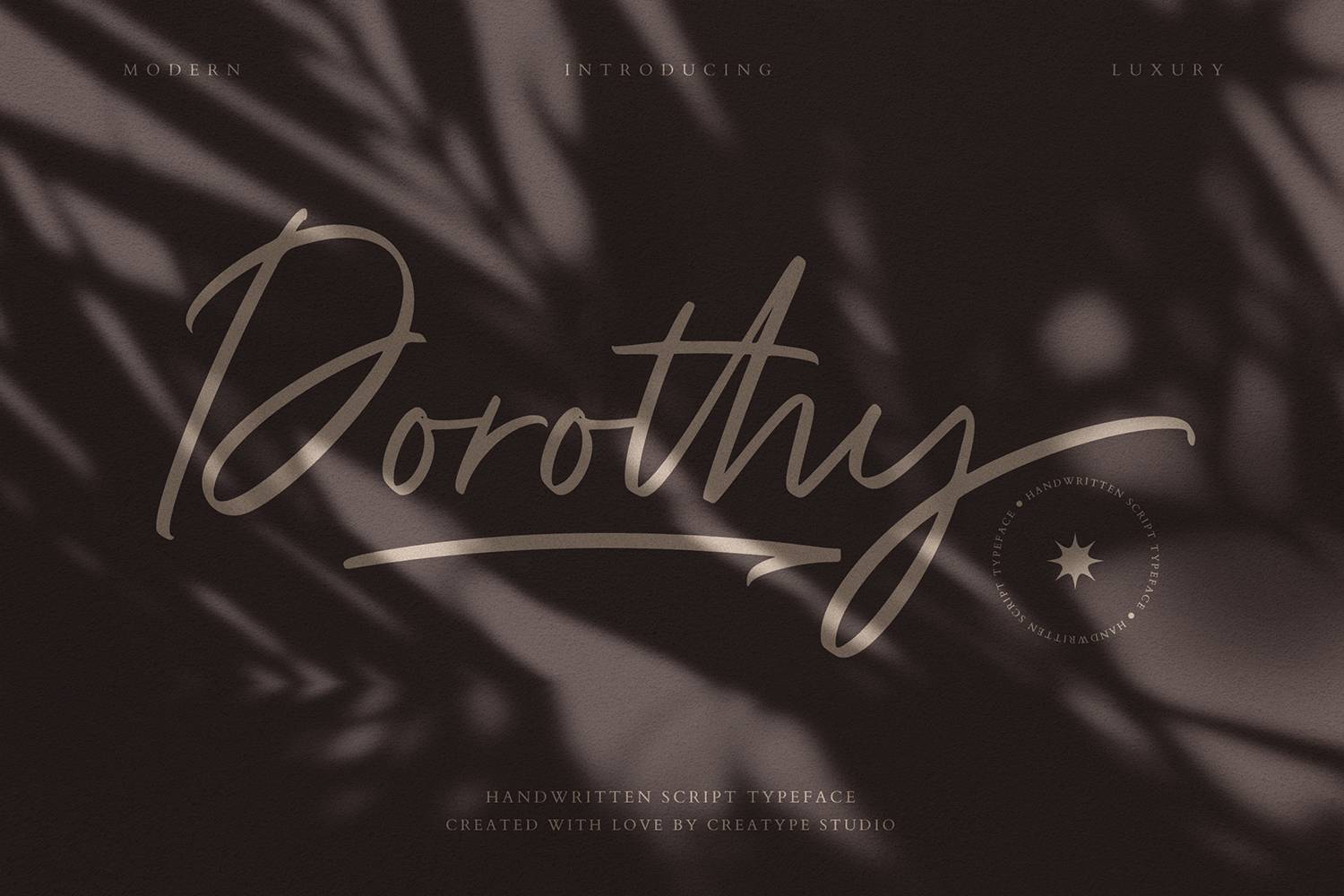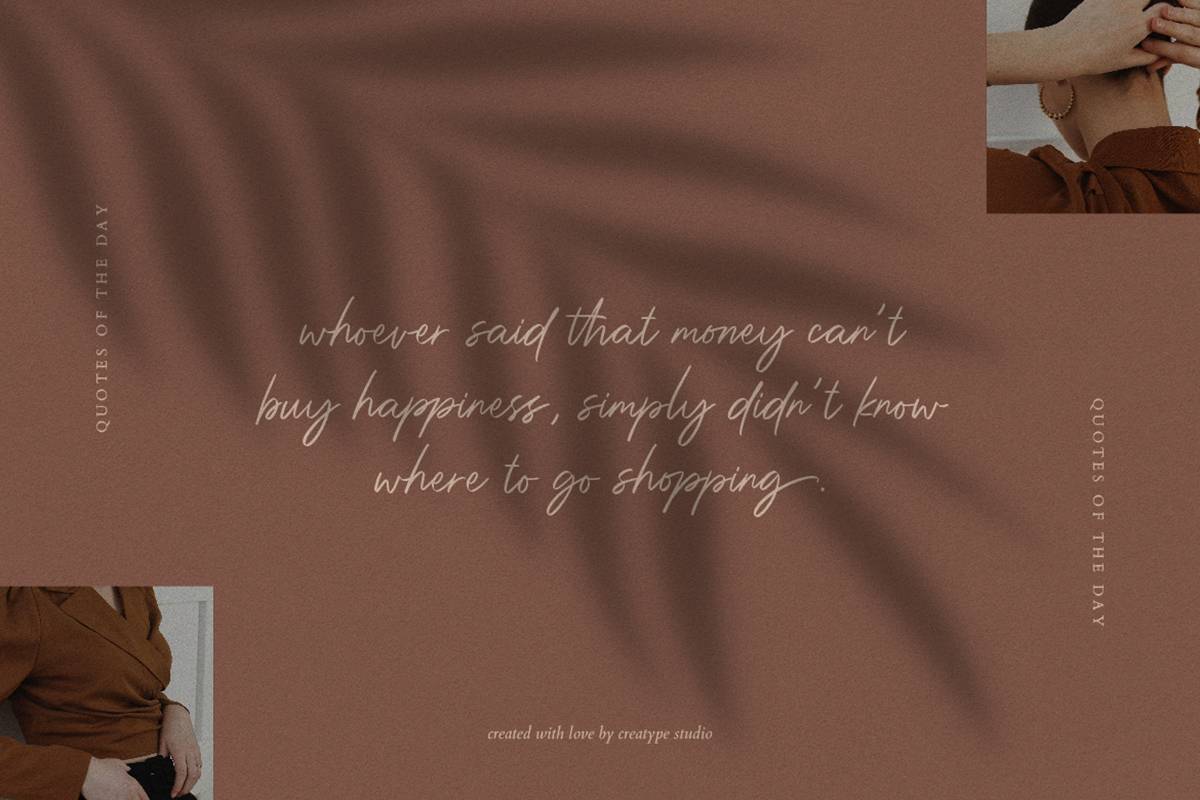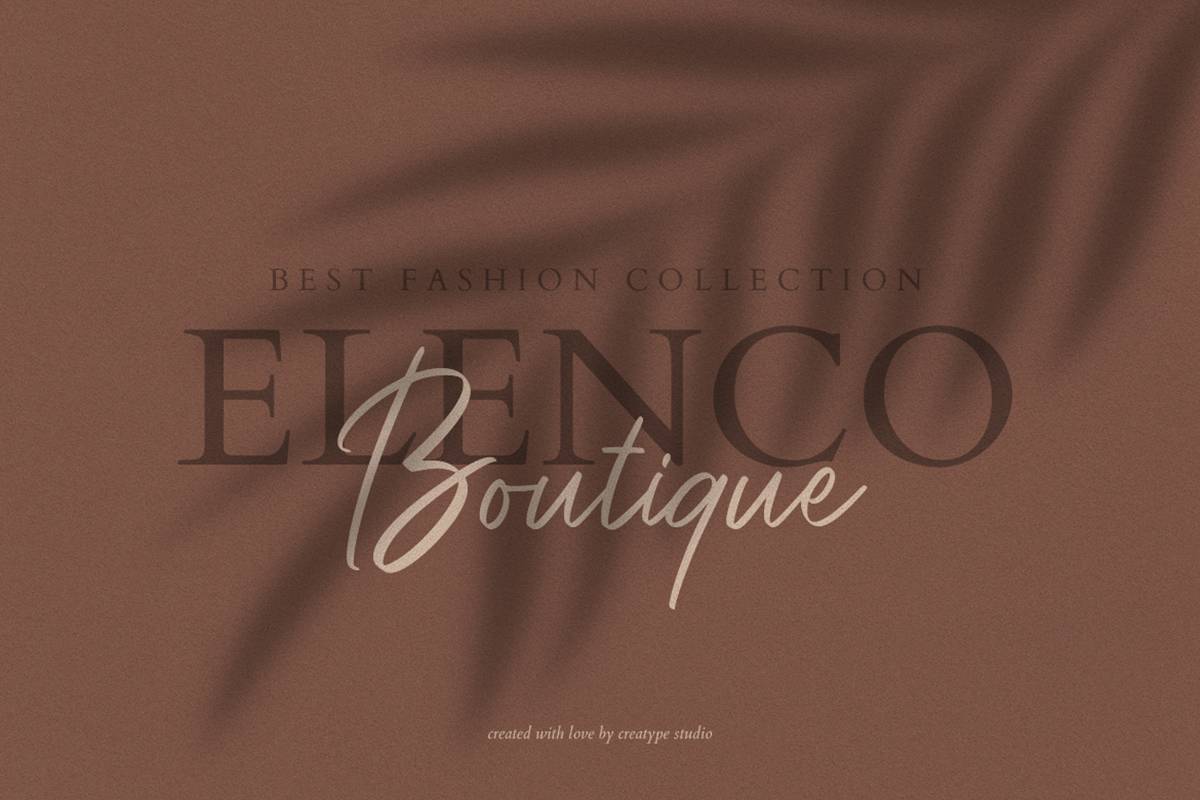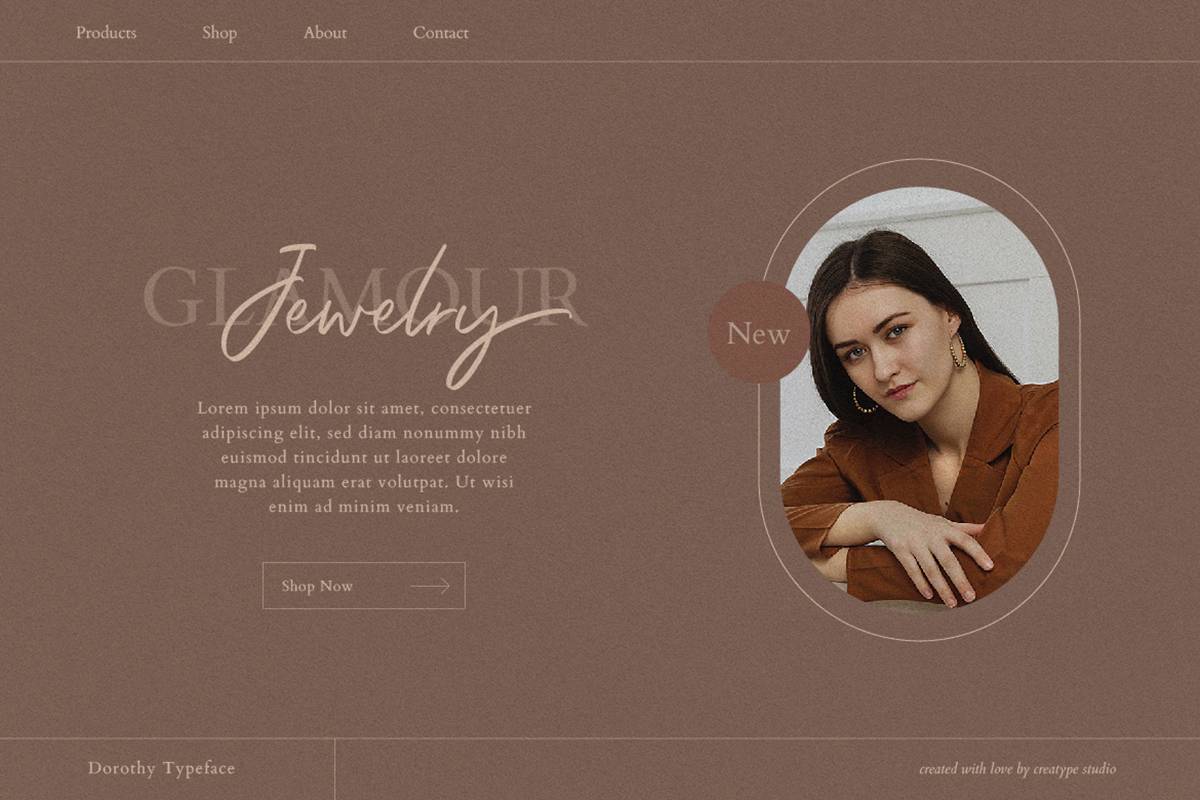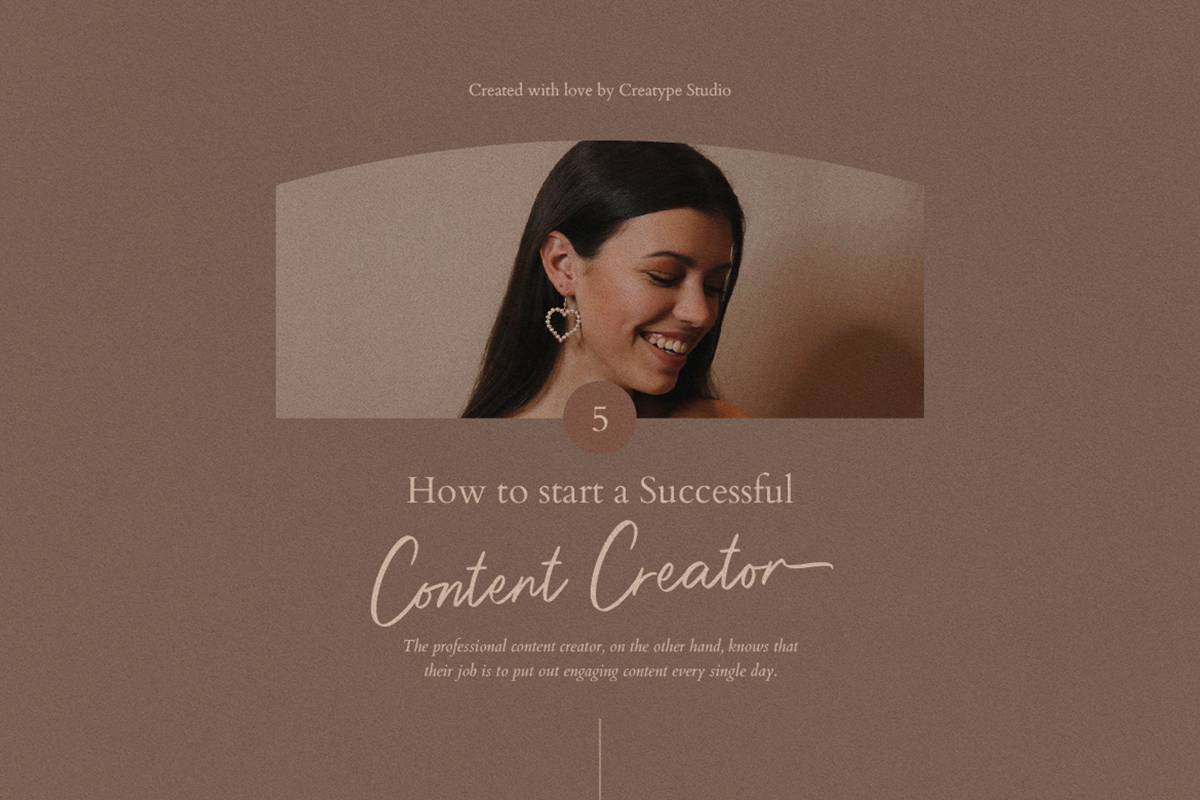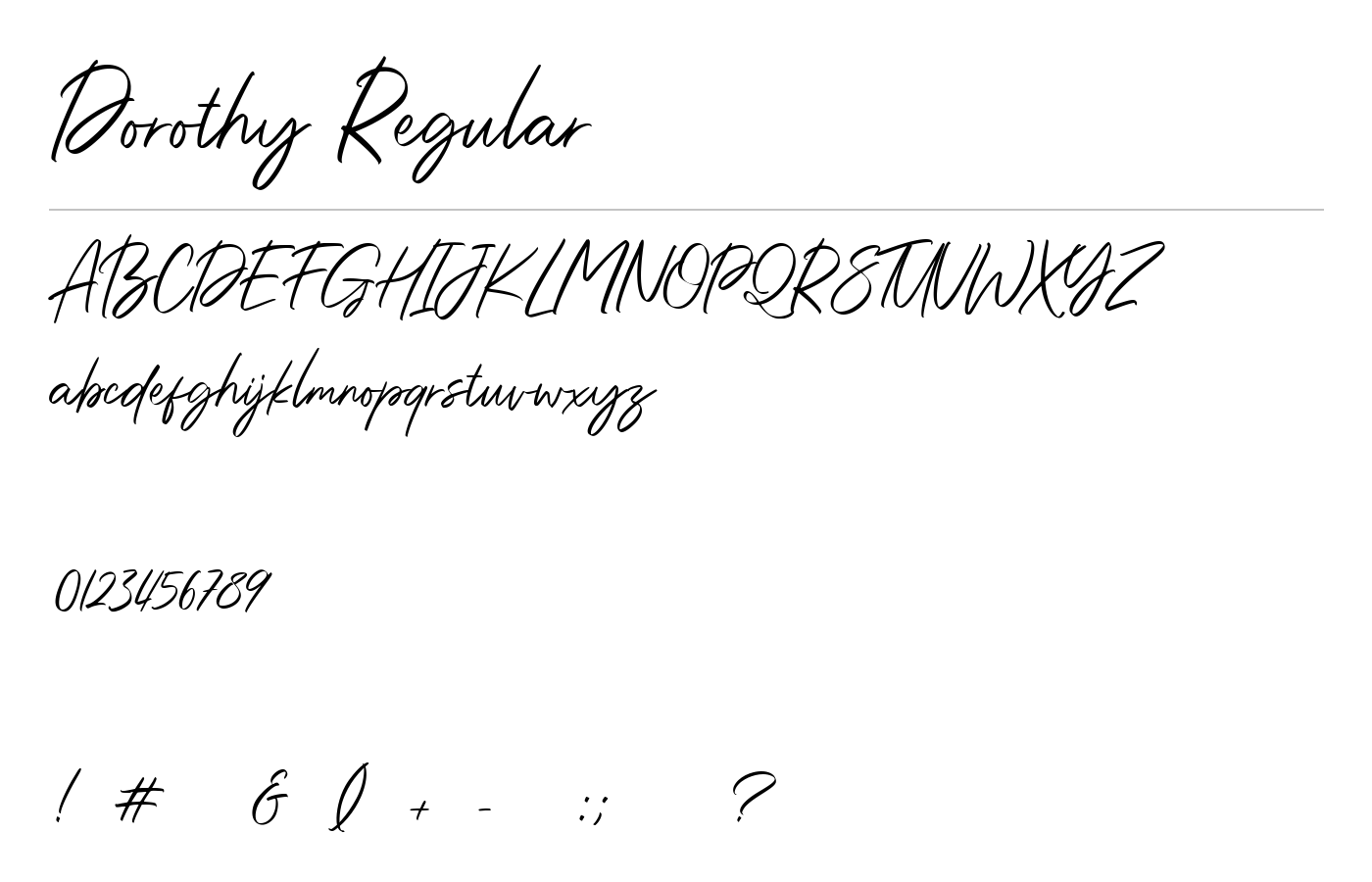
Dorothy Font is a thin, elegant script font with a hand-drawn, casual feel, featuring smooth, flowing strokes and a slightly narrow width that adds a personal touch. Its tall, slender letterforms and delicate lines make it perfect for invitations, branding, and creative projects that seek a graceful, friendly, and modern handwritten style. This font works well in designs where a subtle, stylish, and intimate atmosphere is desired.
Dorothy Font
About Dorothy Font